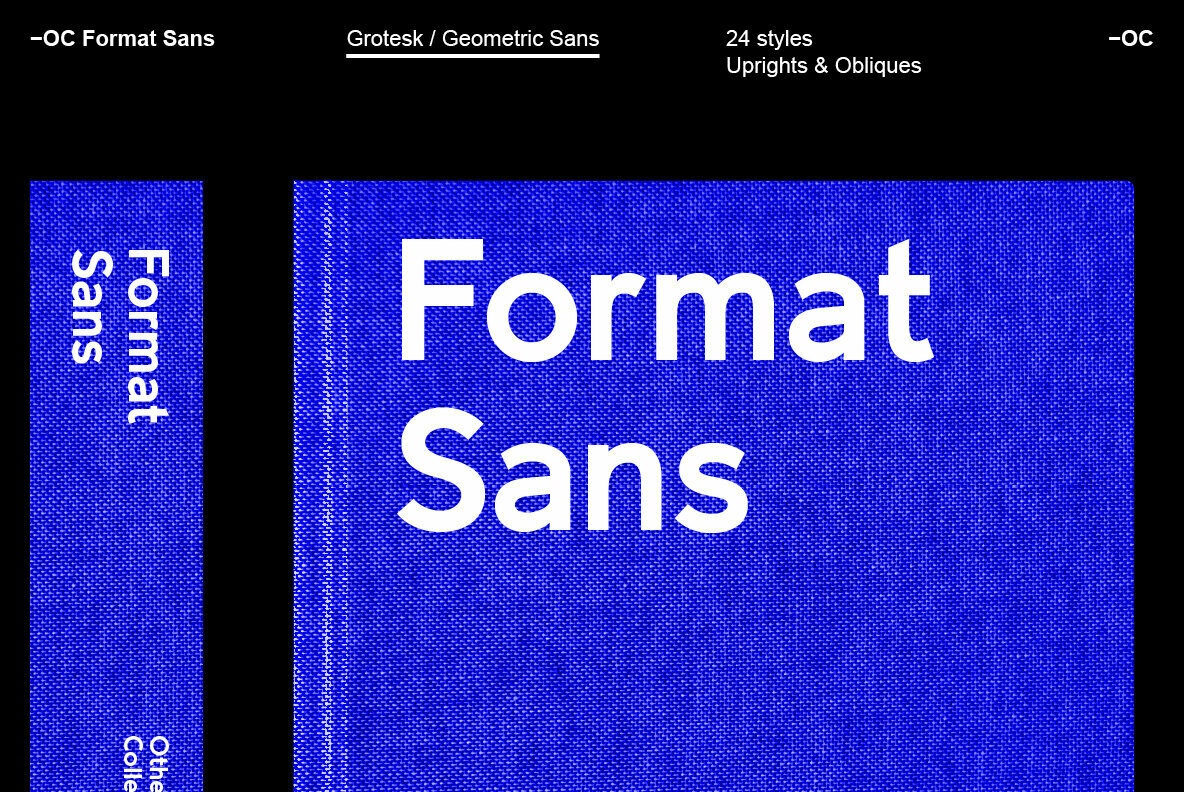
OC Format Sans Font
OC Format Sans Font is perfect for contemporary design systems, systematic brand identities, structured corporate communications, organized editorial layouts, methodical documentation projects, format-conscious web typography, standardized interface design, and precision-focused advertising campaigns. This systematic typeface works exceptionally well in both digital applications and print media where organizational clarity and structural consistency are fundamental design requirements.
What makes OC Format Sans Font so exciting is its rigorous interpretation of systematic design principles through precisely structured letterforms that embody the same methodical approach and organizational excellence that defines successful format standardization and systematic communication protocols. The font features organized characters with systematic proportions, structural spacing, and format-conscious details that communicate reliability, methodical thinking, and the disciplined approach necessary for creating consistent, well-organized visual communications. Its systematic personality and organizational heritage make it ideal for brands seeking to establish procedural authority while appealing to audiences who value structure, consistency, and the methodical pursuit of organizational excellence.
The OC Format Sans Font family includes comprehensive weight variations with systematic consistency, along with structured alternates and organizational ornamental elements. Each style maintains the typeface's format-conscious character while offering extensive character sets including systematic numerals, organized punctuation marks, and special symbols designed to enhance structured communications and methodical branding efforts across various systematic contexts.
This remarkable typeface represents the perfect fusion of organizational methodology and contemporary typography for systematic and professional industries. Whether you're developing corporate identity systems, creating standardized documentation materials, or designing methodical interface applications, OC Format Sans Font Free Download delivers the systematic reliability and versatility needed for successful organizational communications. The font's structured approach makes it particularly effective for corporations, documentation systems, organizational consultancies, and businesses emphasizing consistency, structure, and the methodical pursuit of systematic excellence.
The precisely engineered systematic construction and optimized organizational performance in OC Format Sans Font ensure maximum structural consistency while maintaining clear communication across all format-conscious applications. Its methodical presence makes it ideal for systematic branding, organized marketing materials, and structured communications where its full format-conscious character can create lasting reliability and establish immediate association with organization, consistency, and the disciplined pursuit of systematic design excellence.